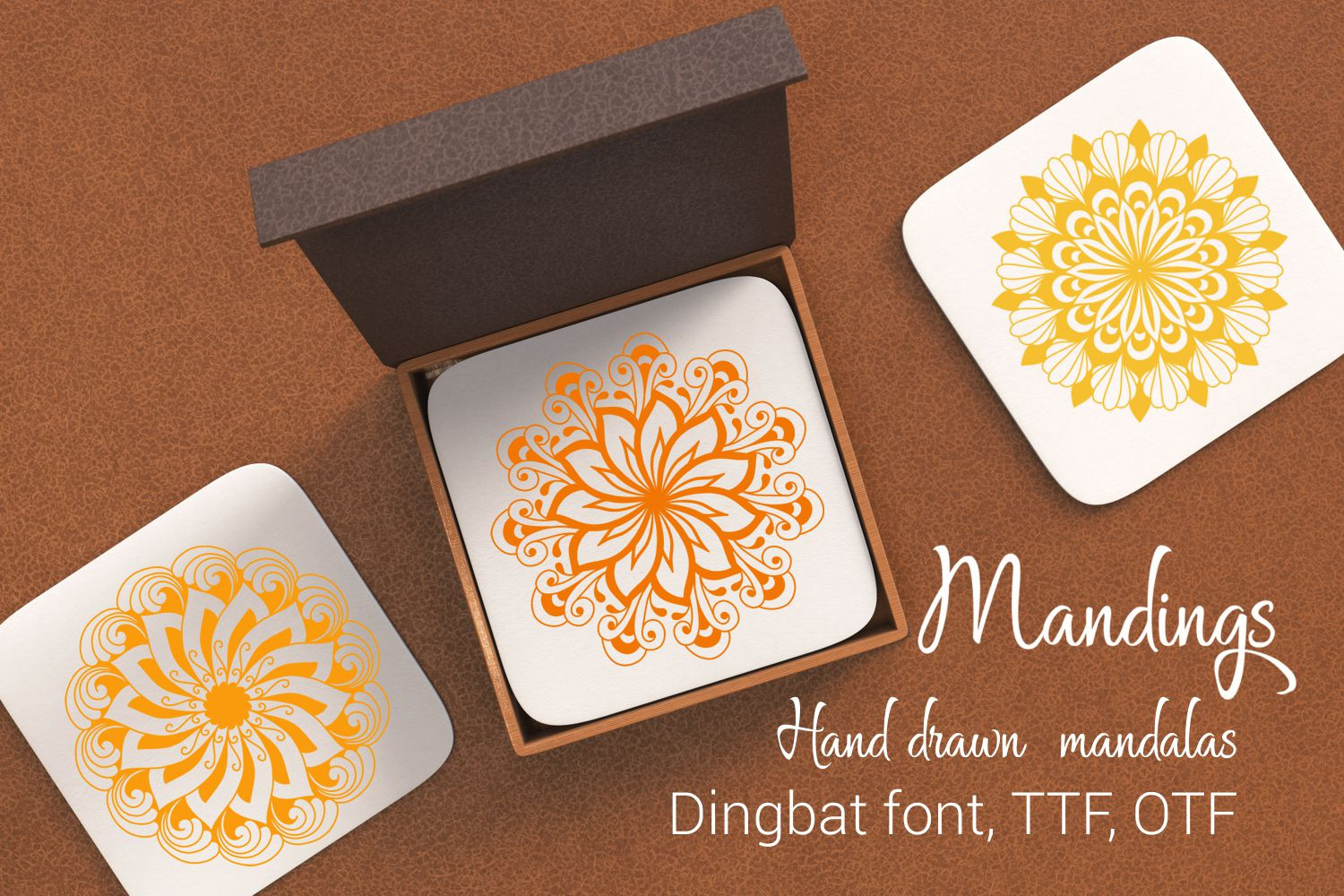
Mandings Dingbat Font
Introducing Mandings hand drawn dingbat font.
Full font contains 52 hand drawn mandalas - just type A-Z and a-z letters on keyboard.
Mandings is great for wedding stationeries, product packaging, branding projects, homeware designs - or simply as an overlay to any background image.